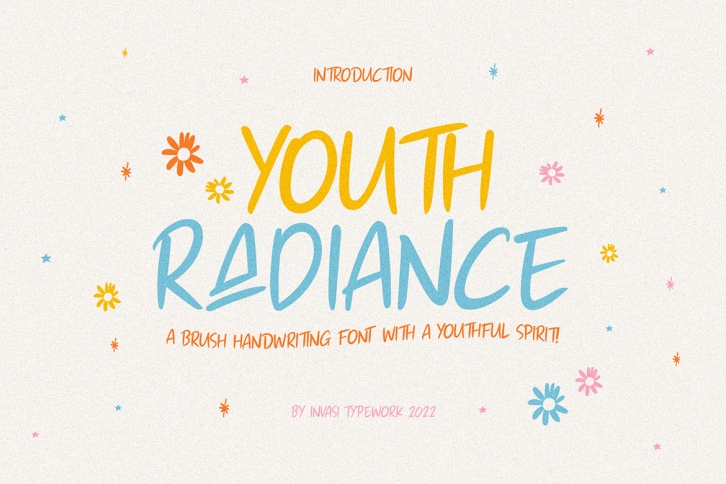
Youthful Radiance is a stylish and incredibly elegant script font. It looks stunning on wedding invitations, thank you cards, quotes, greeting cards, logos, business cards and every other design which needs a handwritten touch.